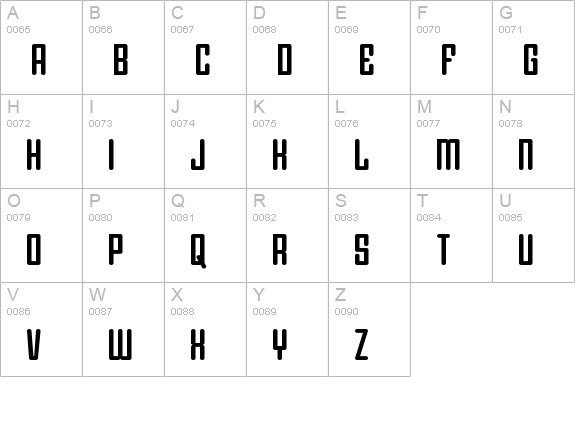
Darklighter Font Details
Darklighter is a donationware font in the General > Bold category, designed by Iconian. It has been downloaded 104 times and is available for Windows, Mac and Linux.
Darklighter font is a modern and sleek typeface that exudes sophistication and style. With its elegant letterforms and sharp angles, this font is perfect for creating a bold statement in your design projects. Whether you're working on branding, editorial design, or any other creative endeavor, Darklighter font is sure to elevate your work to the next level.